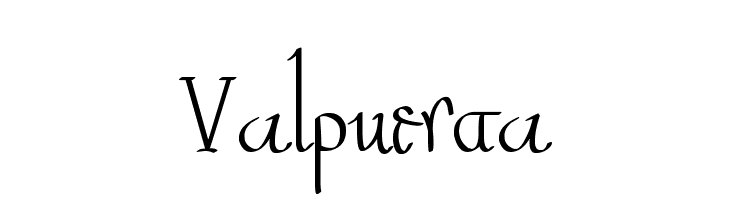
An artistic, medieval-inspired font with decorative and intricate letterforms.
An elegant calligraphic font with intricate curves and artistic flourishes.